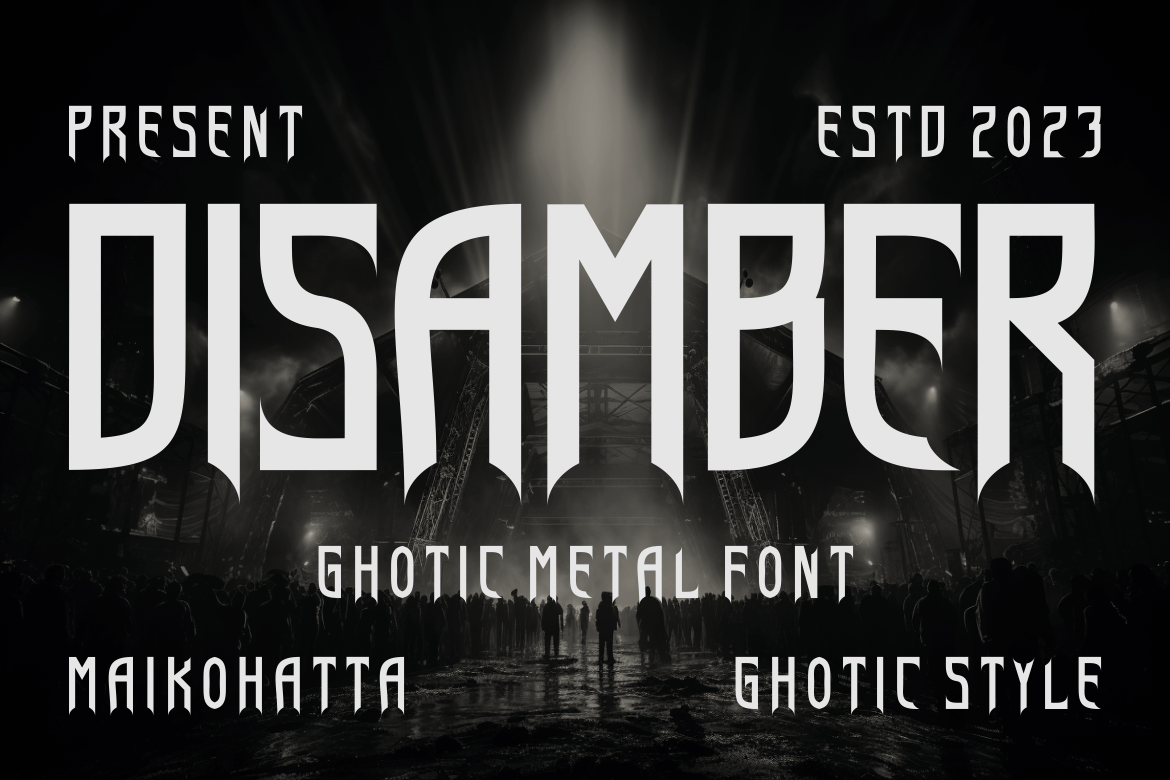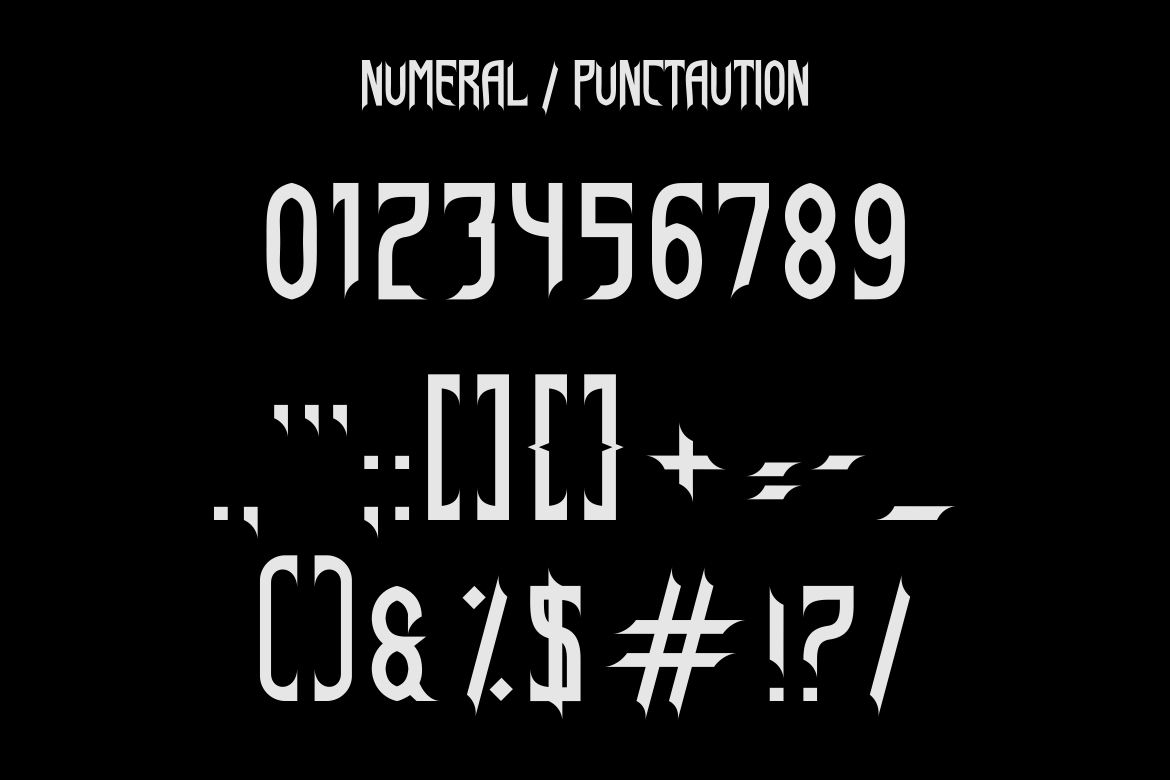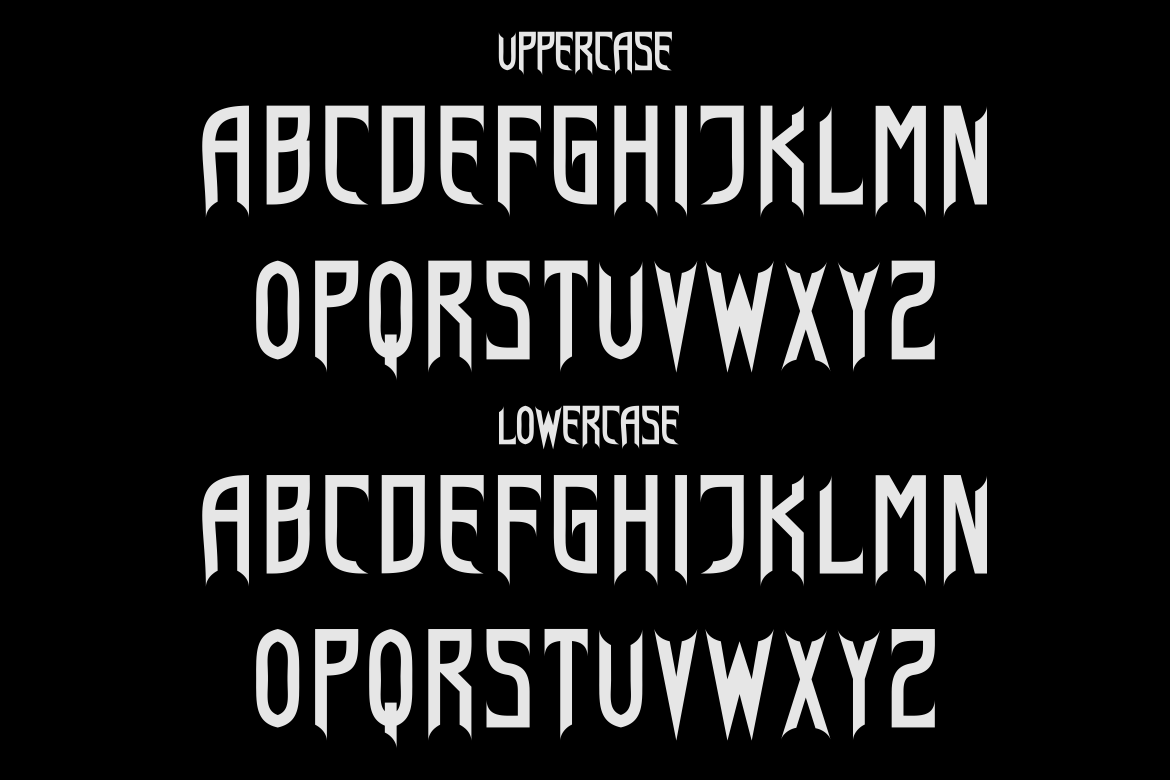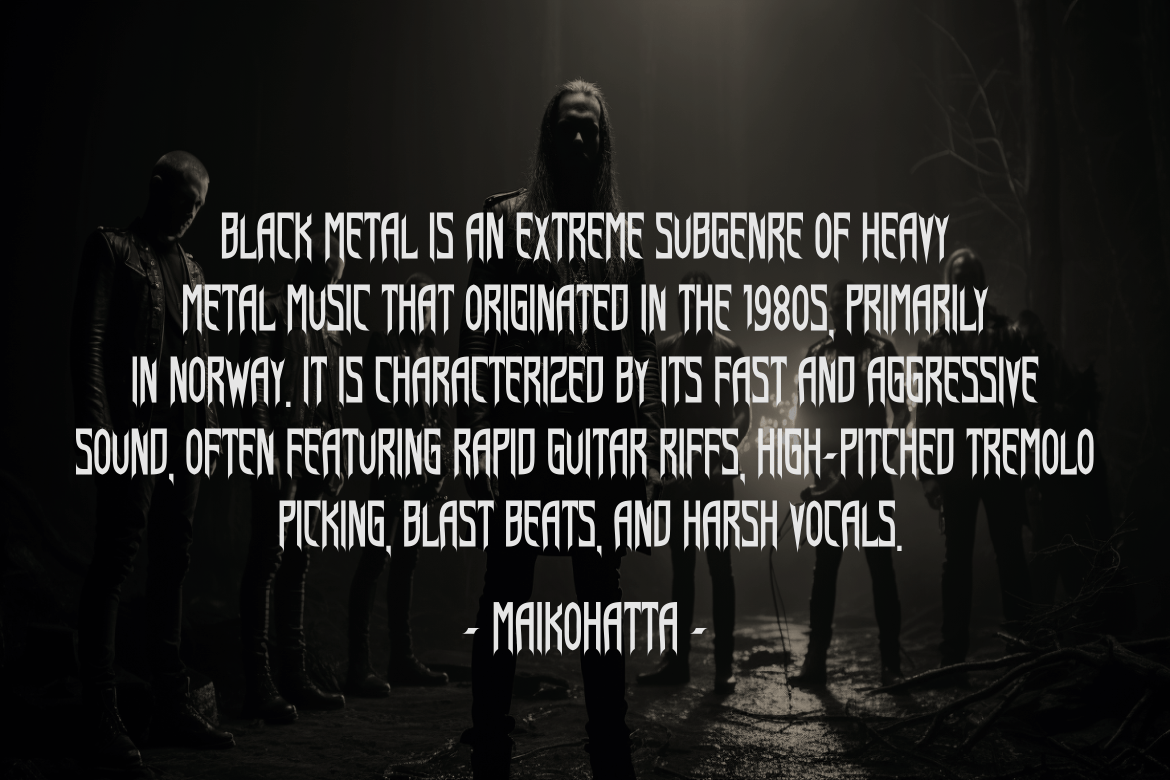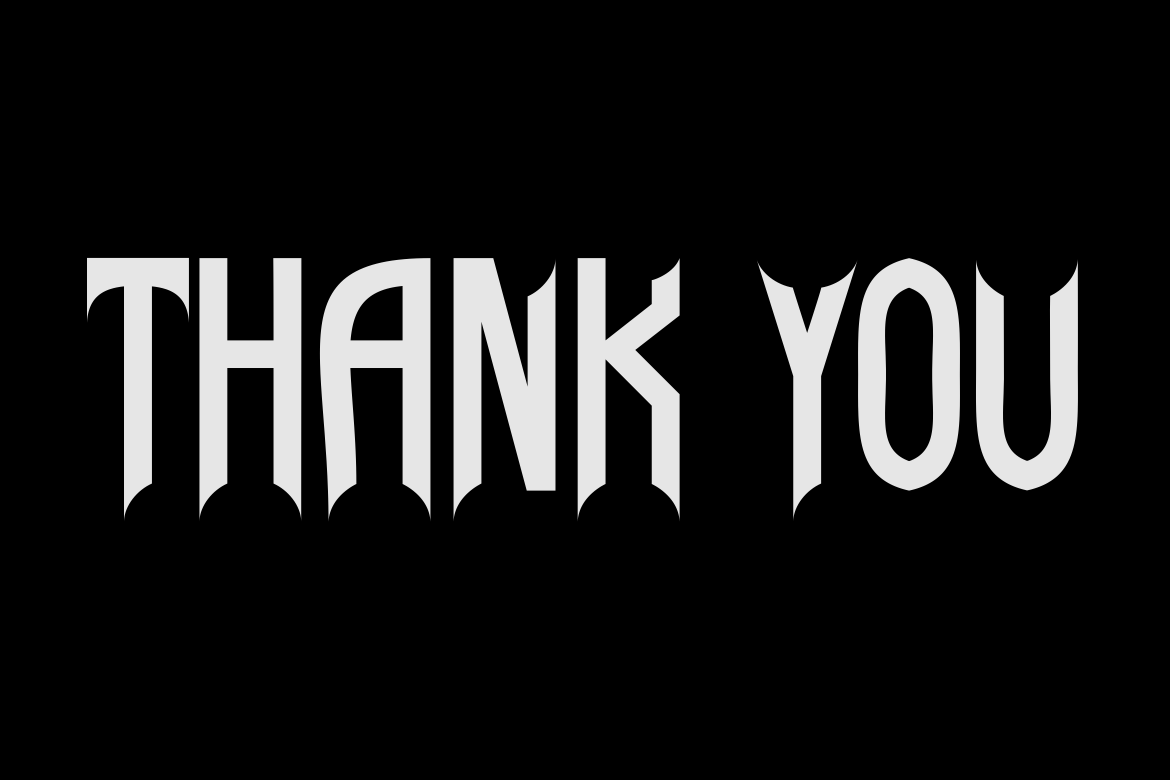
Disamber Font
Introducing our new product Disamber Font – Gothic Metal Font
Disamber Font – Modern Font is a bold and authentic display font. The font is suitable for any branding project like logo, template design, and many more. outstanding in a wide range of contexts.